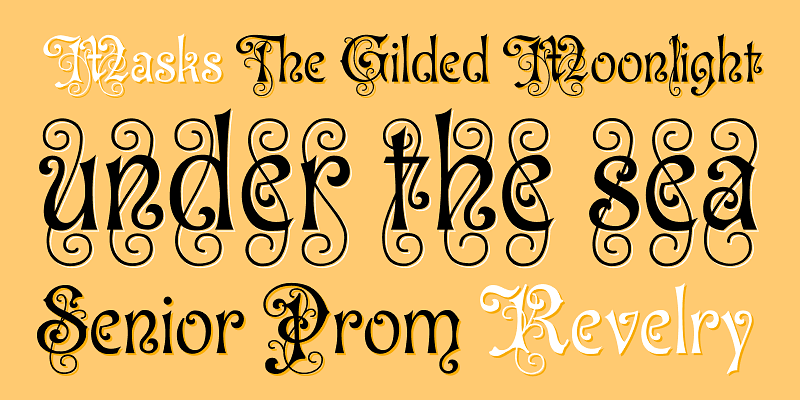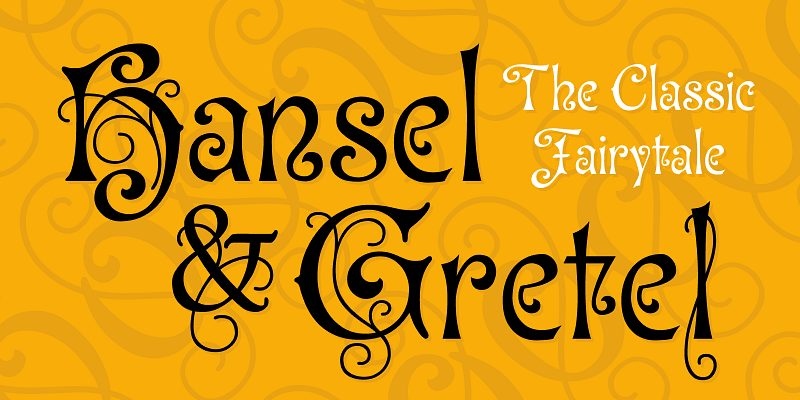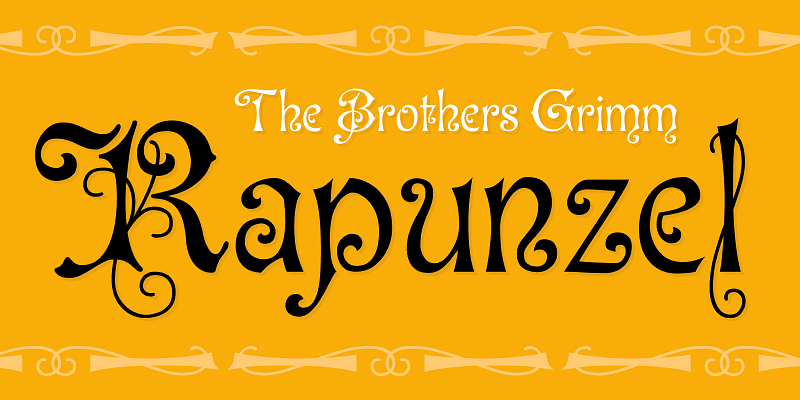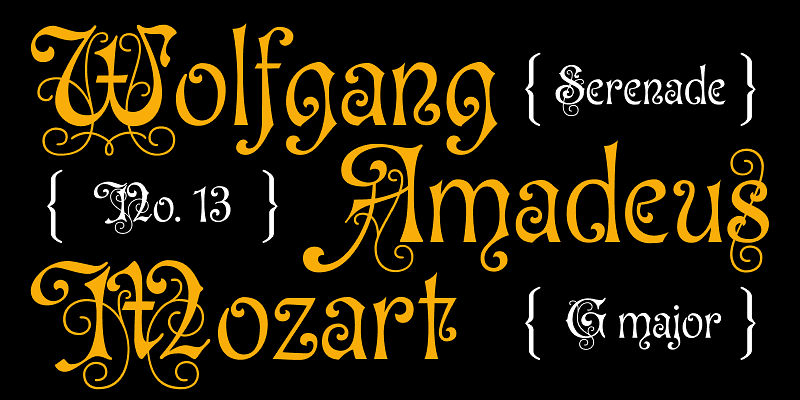
P22 Ringwell is pure Victoriana in two styles, plain and decorative, that can be mixed and matched. The Pro version combines the two styles using stylistic alternate features.